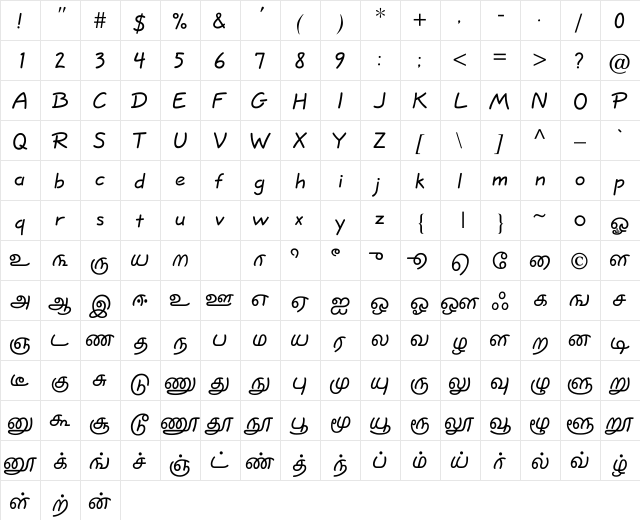
ComicTSC Normal Font Preview
ComicTSC Normal
ComicTSC Normal Font Details
Design Context for ComicTSC Typeface
ComicTSC has an approachable, lighthearted character — its loose, expressive forms are well-suited to children's content, casual branding, and fun-first design.
Font Pairing: Pairs well with a rounded or humanist sans for body copy, maintaining the friendly tone without relying on ComicTSC to carry extended reading.
Pro Tip: Avoid using ComicTSC for long passages of text — it works best for headlines, labels, and short calls to action.